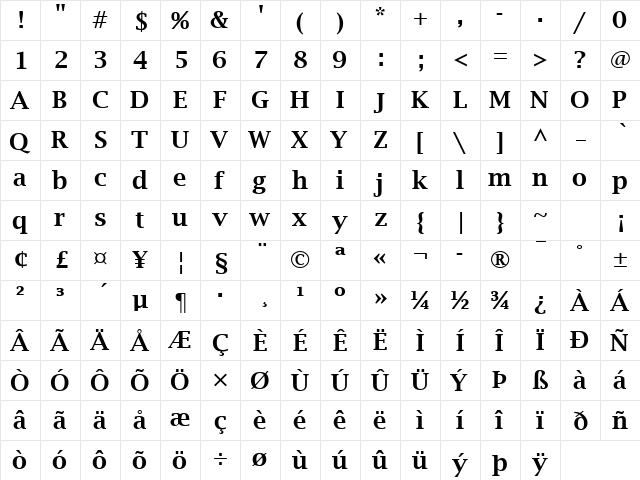
Lucida Becker Bright Demi Regular
Design Context for Lucida Becker Bright Demi Typeface
Lucida Becker Bright Demi takes a measured approach to typography — its balanced proportions and neutral character make it a reliable workhorse for both digital and print work.